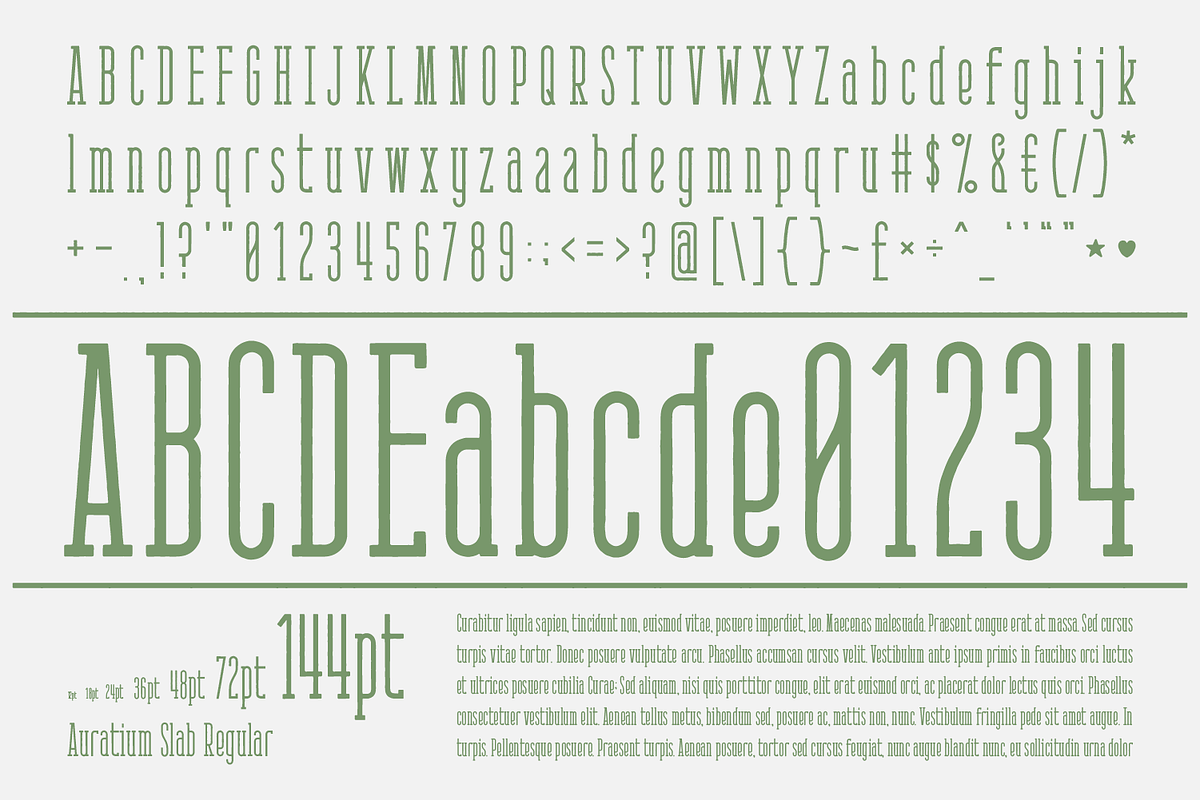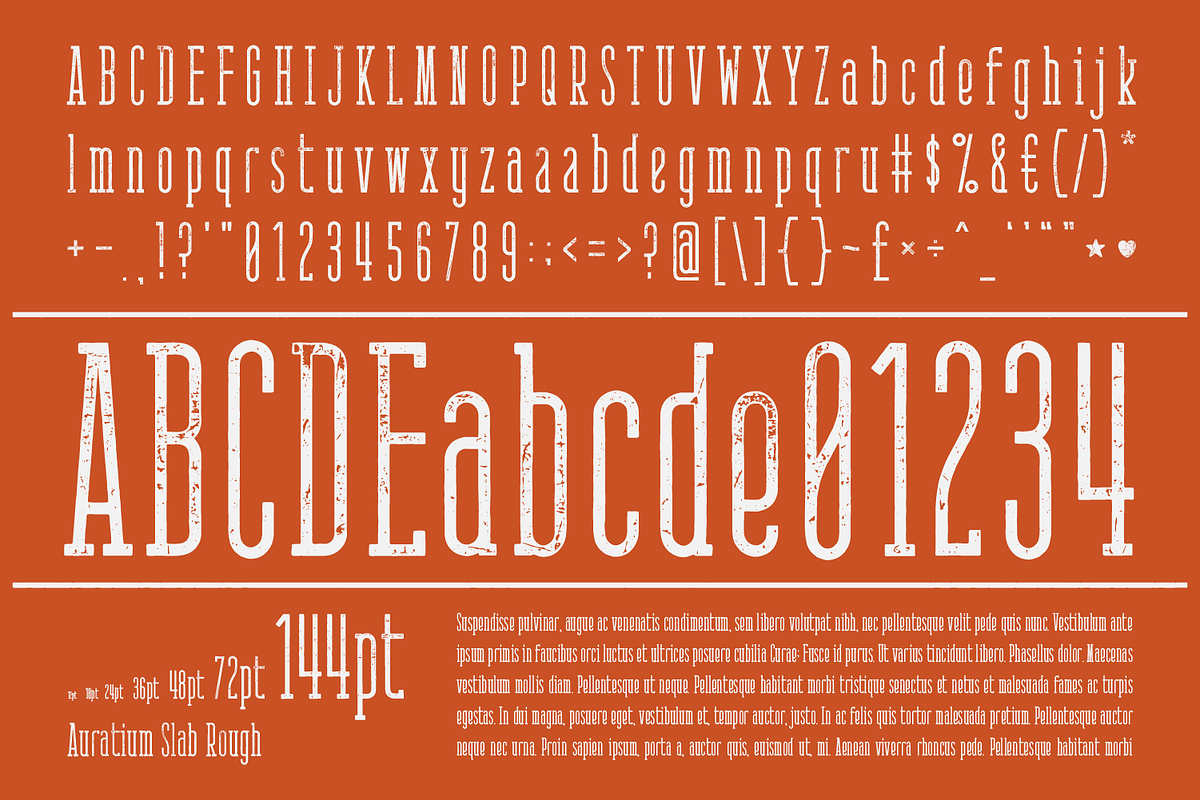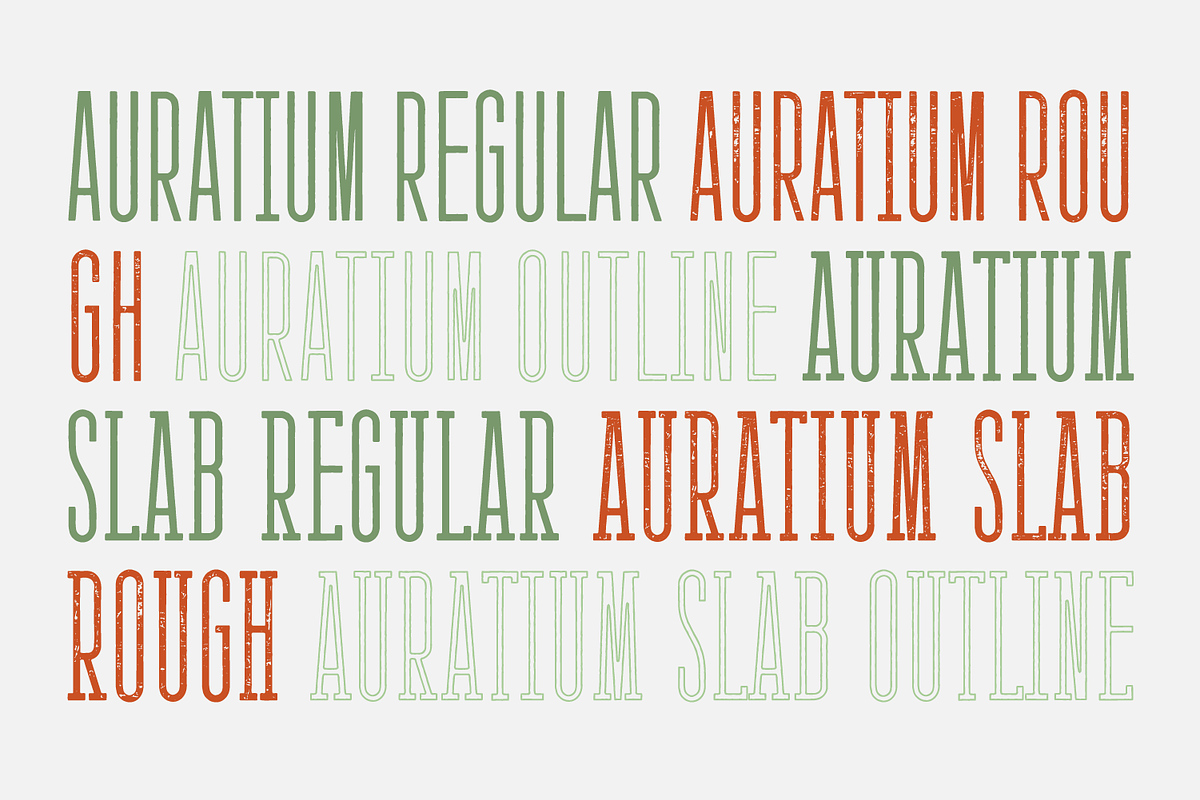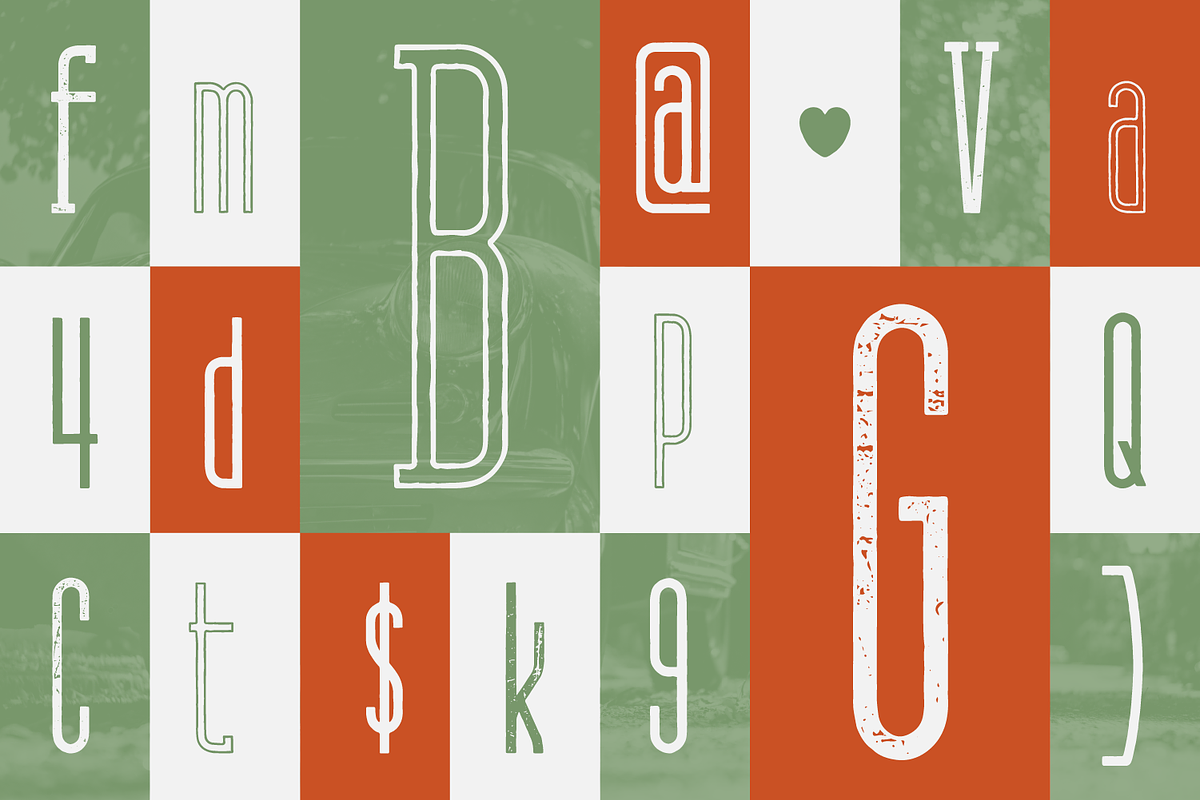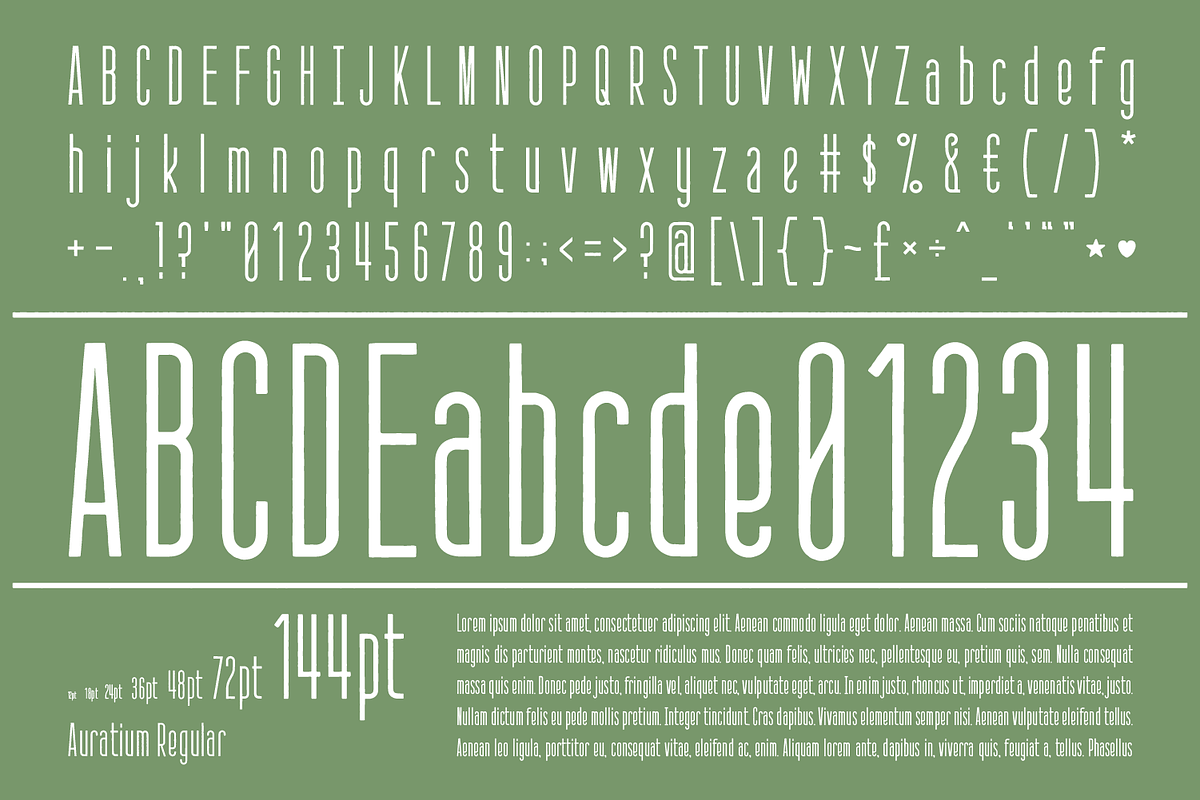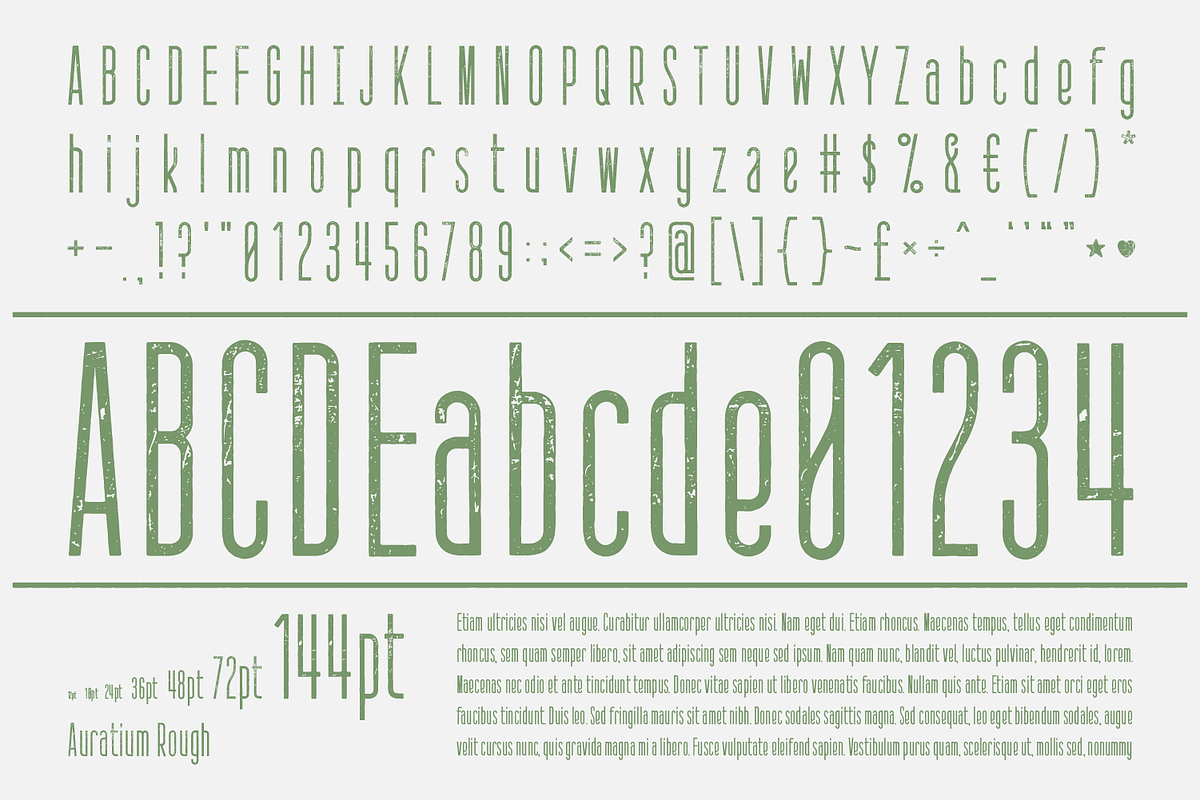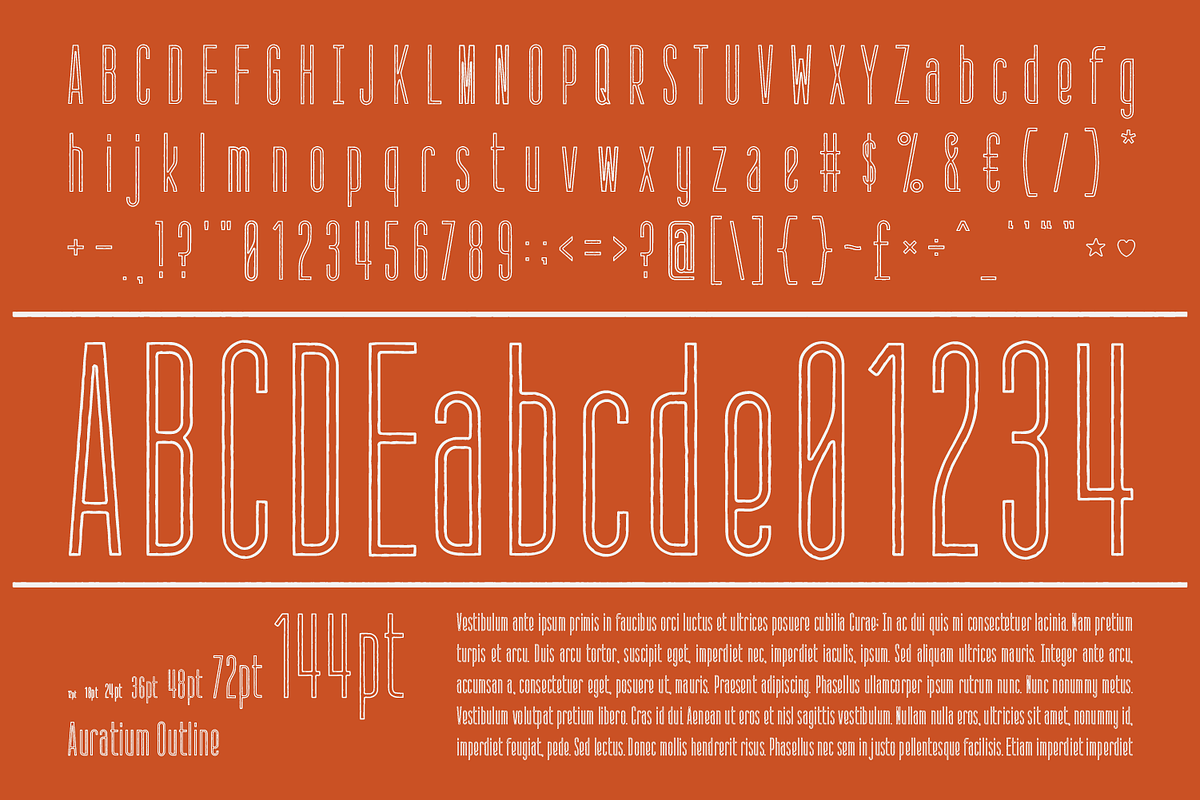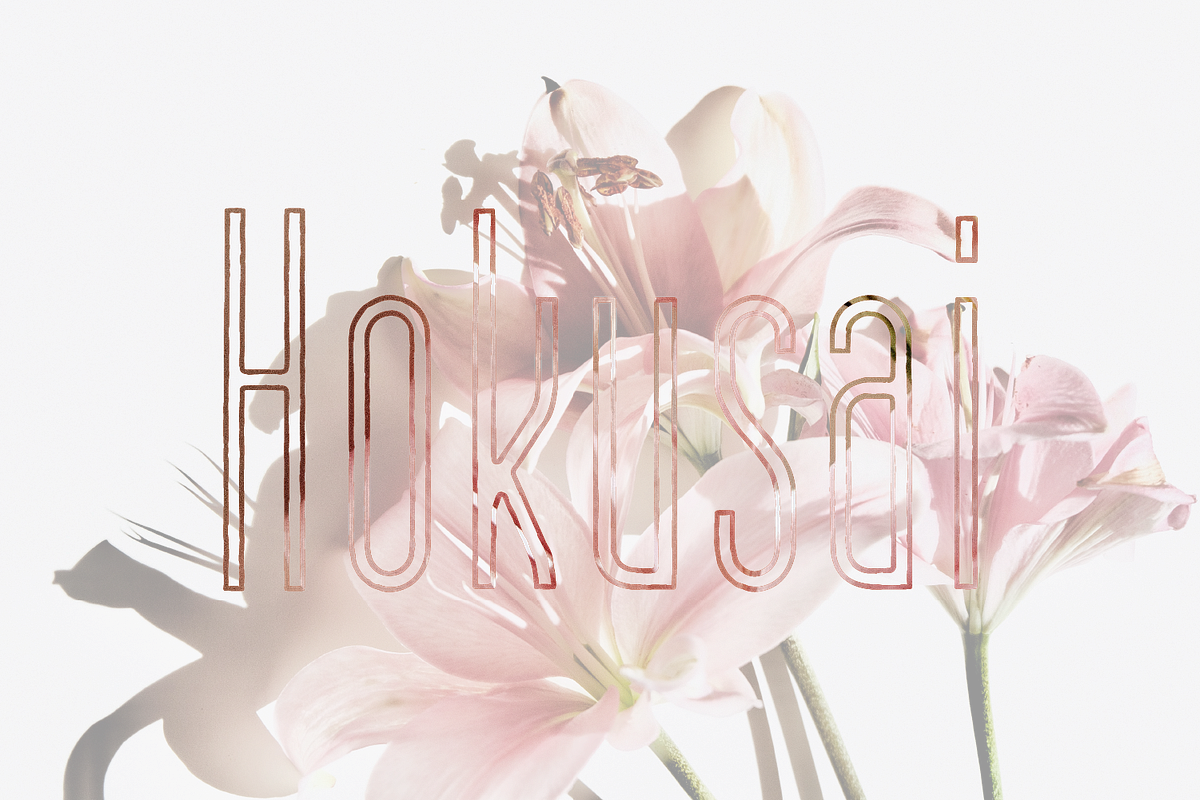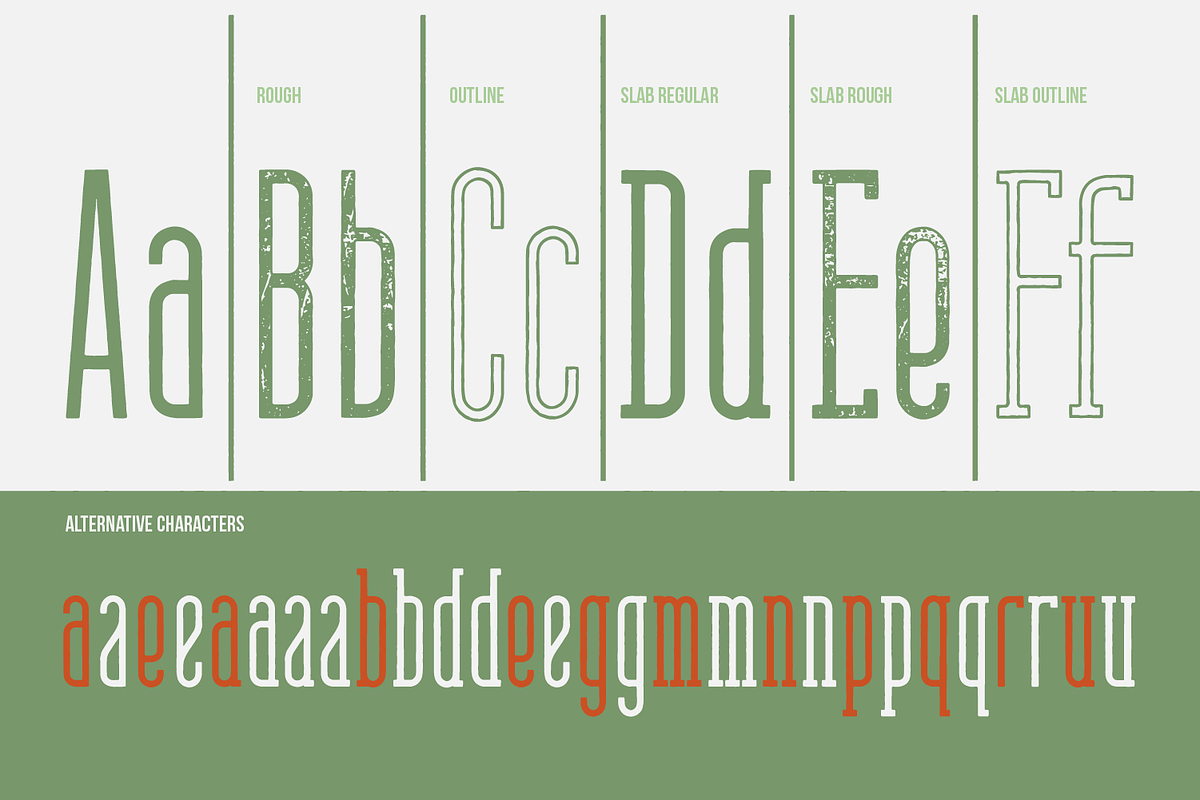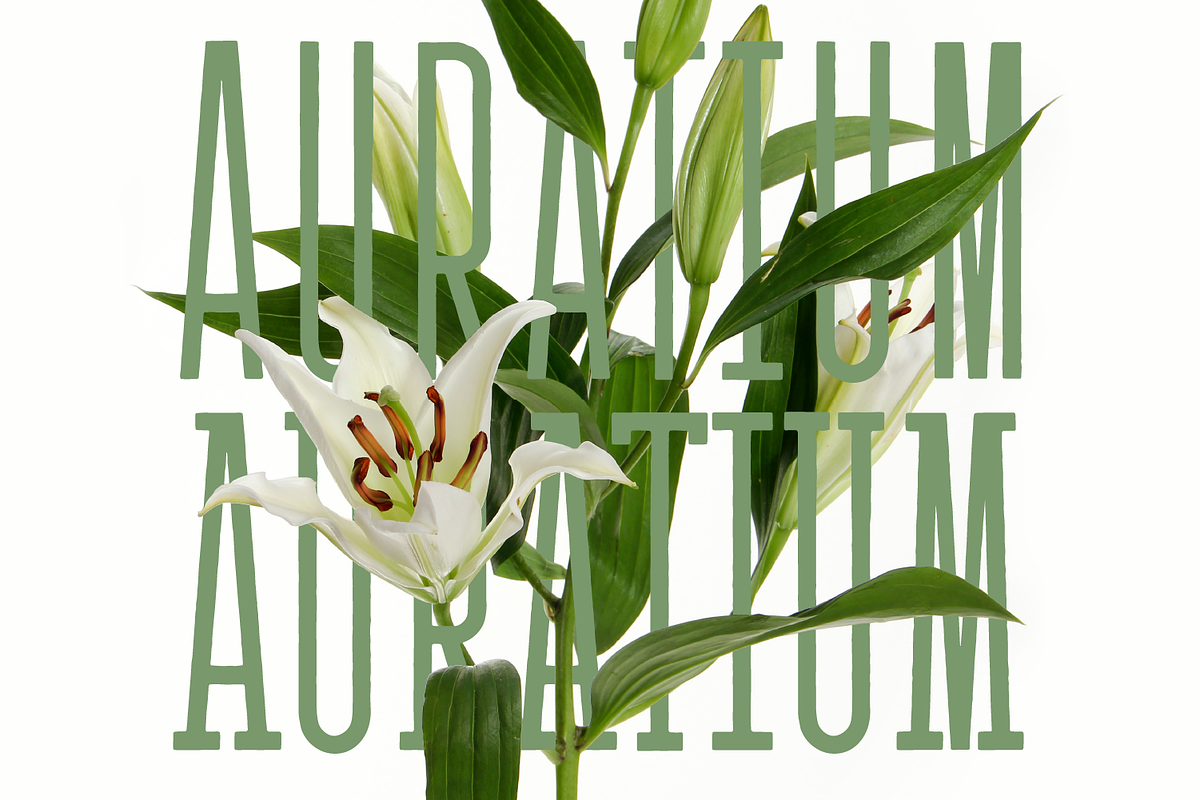
AURATIUM Regular & Slab Typeface
AURATIUM - Regular & Slab Typeface - Released November 2021
"Auratium" is a Modern Condensed & Condensed Slab Typeface. Lettering forms were hand rendered in Procreate to give that rough edge look and then remastered in Illustrator as a package of Regular, Rough & Outline formats.
Highly usable typeface but with a lean towards more display use "Auratium" is made to be visually strong with simple character set. Regular & Slab set comes with varying serif and alternative characters as well as the usual punctuation.